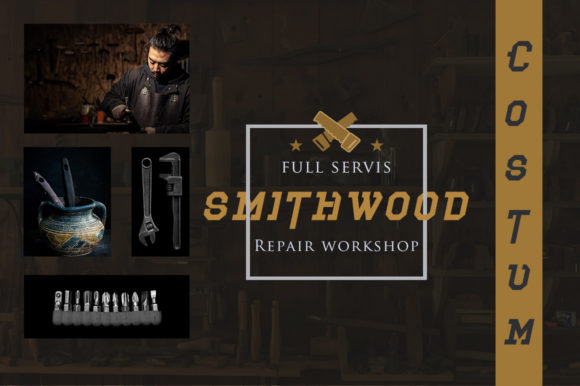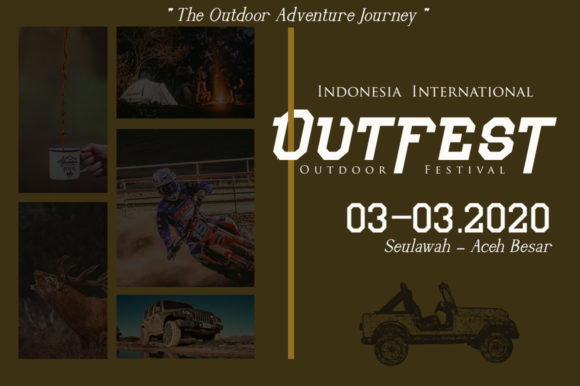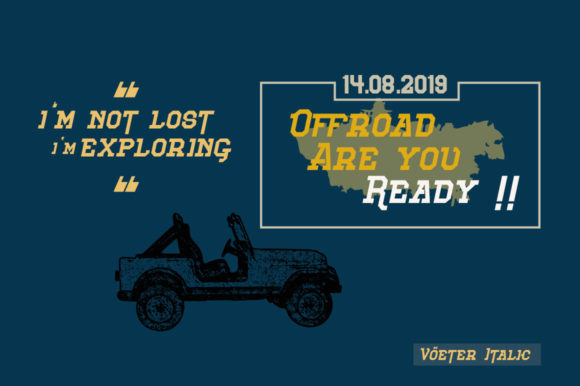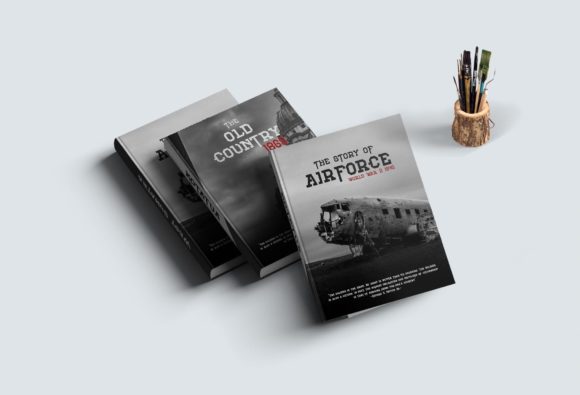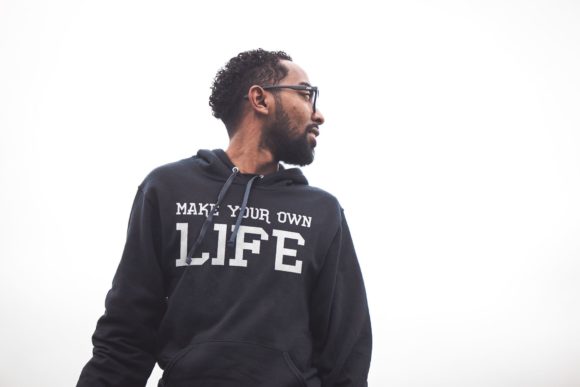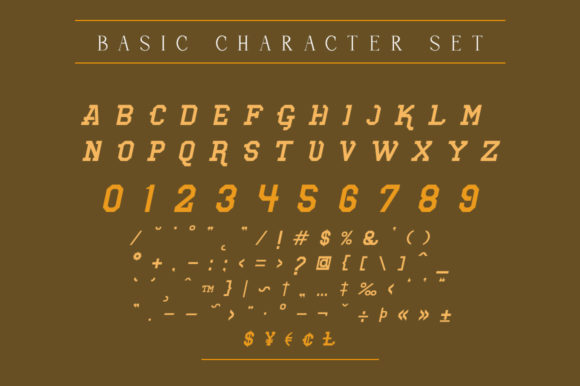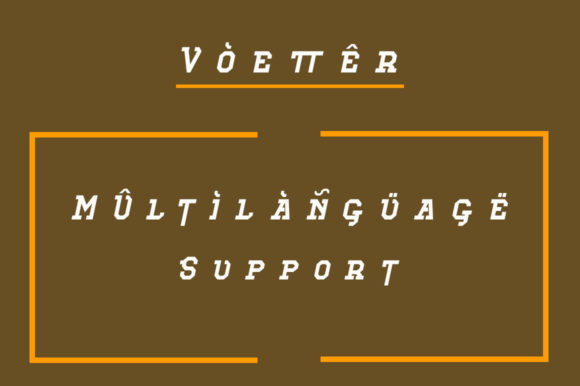
Voetter
Voetter: A Bold and Chunky Slab Serif Font
Voetter is a distinctive slab serif font that combines boldness with chunky letterforms. This typeface offers designers a powerful tool for creating impactful typography across a wide range of design projects.
Key Features of Voetter
• Bold Design: Features a strong, eye-catching appearance that commands attention
• Chunky Letters: Incorporates thick, substantial letterforms for maximum visual impact
• Slab Serif Structure: Maintains the characteristic thick, rectangular serifs typical of slab serif fonts
• Versatile Application: Suitable for a wide variety of topics and design contexts
• Elevating Quality: Has the potential to enhance and uplift any creative project
Ideal Uses for Voetter
Voetter’s unique characteristics make it particularly well-suited for:
• Striking headlines and titles
• Impactful logo designs
• Eye-catching poster and advertisement layouts
• Bold packaging designs
• Powerful social media graphics
When incorporating Voetter into your designs, consider the following tips:
• Use for headlines or short blocks of text to maximize its bold impact
• Pair with simpler, lighter weight fonts for body text to create contrast
• Experiment with different sizes to create hierarchy while maintaining readability
• Consider using it in projects where you want to convey strength and confidence
Voetter is an excellent choice for designers looking to add a bold and chunky slab serif to their typographic toolkit. Its strong appearance and versatility make it stand out in the world of typography. Whether you’re working on logo designs, creating eye-catching poster designs, or developing branding for various projects, Voetter offers the perfect blend of boldness and adaptability.